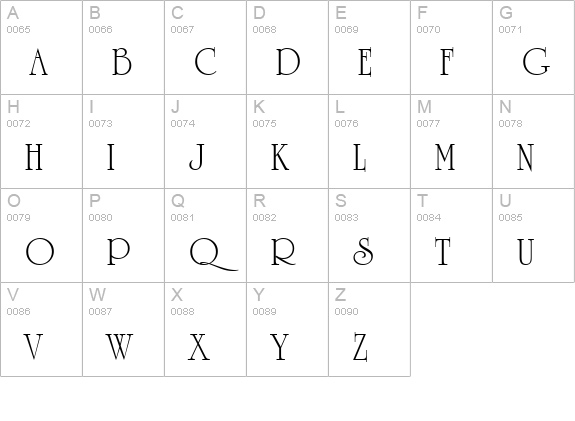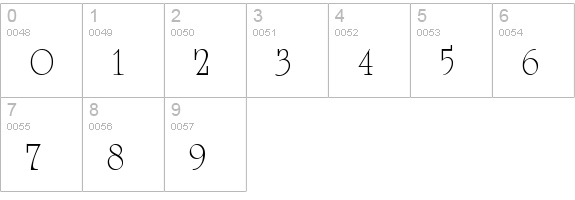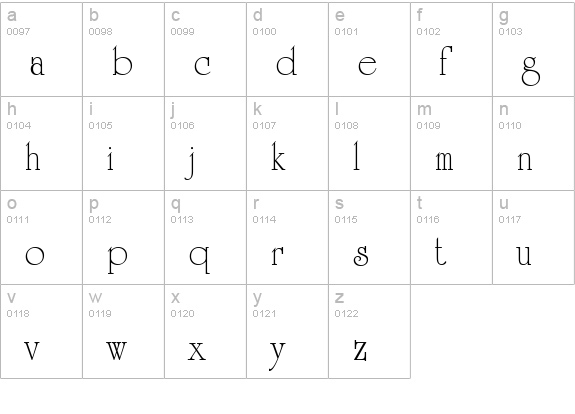
University Roman BT Font Details
University Roman BT is a timeless and classic font that exudes elegance and sophistication. With its clean lines and well-defined serifs, this font is perfect for academic and professional settings, as well as any design project that requires a touch of refinement. What sets University Roman BT apart from other fonts is not only its exceptional quality but also the fact that it is freely available to download. This means that anyone can enjoy the beauty and versatility of this font without having to spend a dime. Whether you're a student working on a research paper, a designer creating a logo for a prestigious university, or a professional looking to enhance the professionalism of your documents, University Roman BT is the ideal choice. Its legibility and classic appeal make it perfect for any application. To get your hands on this exceptional font, simply head over to FontsMarket.com, where you can freely download University Roman BT. With just a few clicks, you'll have access to a font that will elevate your designs and give them a timeless and refined look. Don't miss out on this opportunity to enhance your work with a font that is both elegant and free.